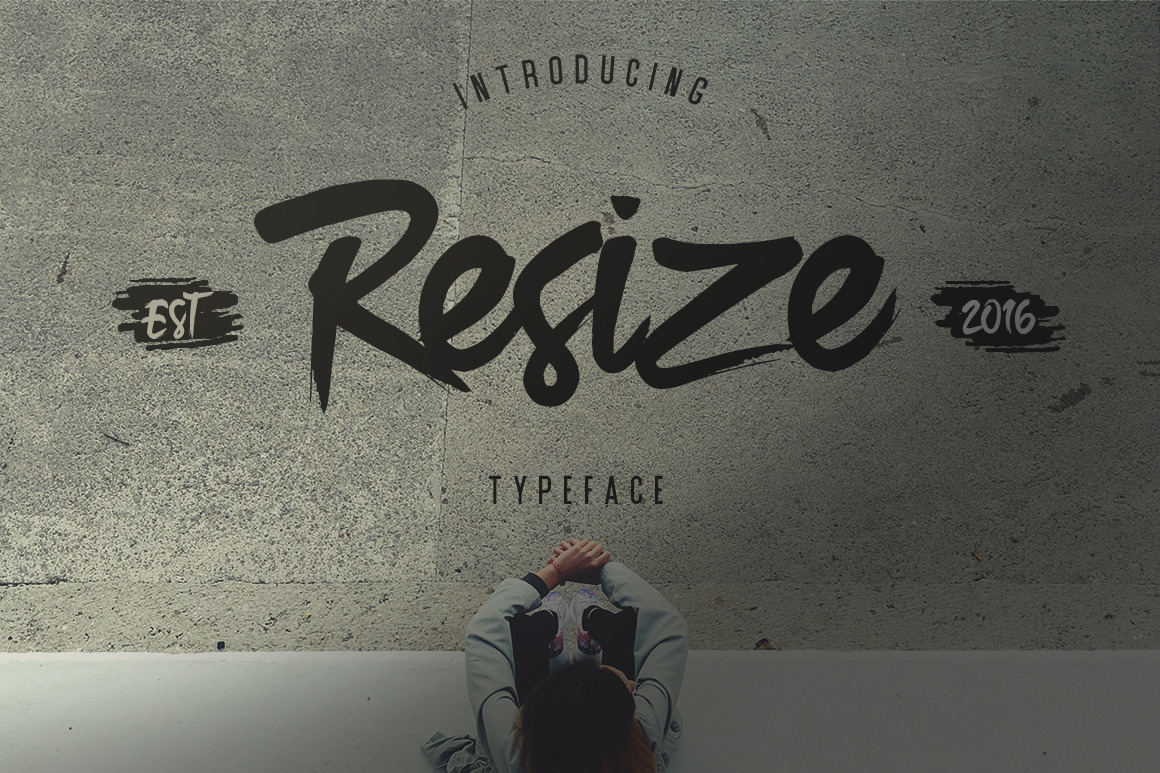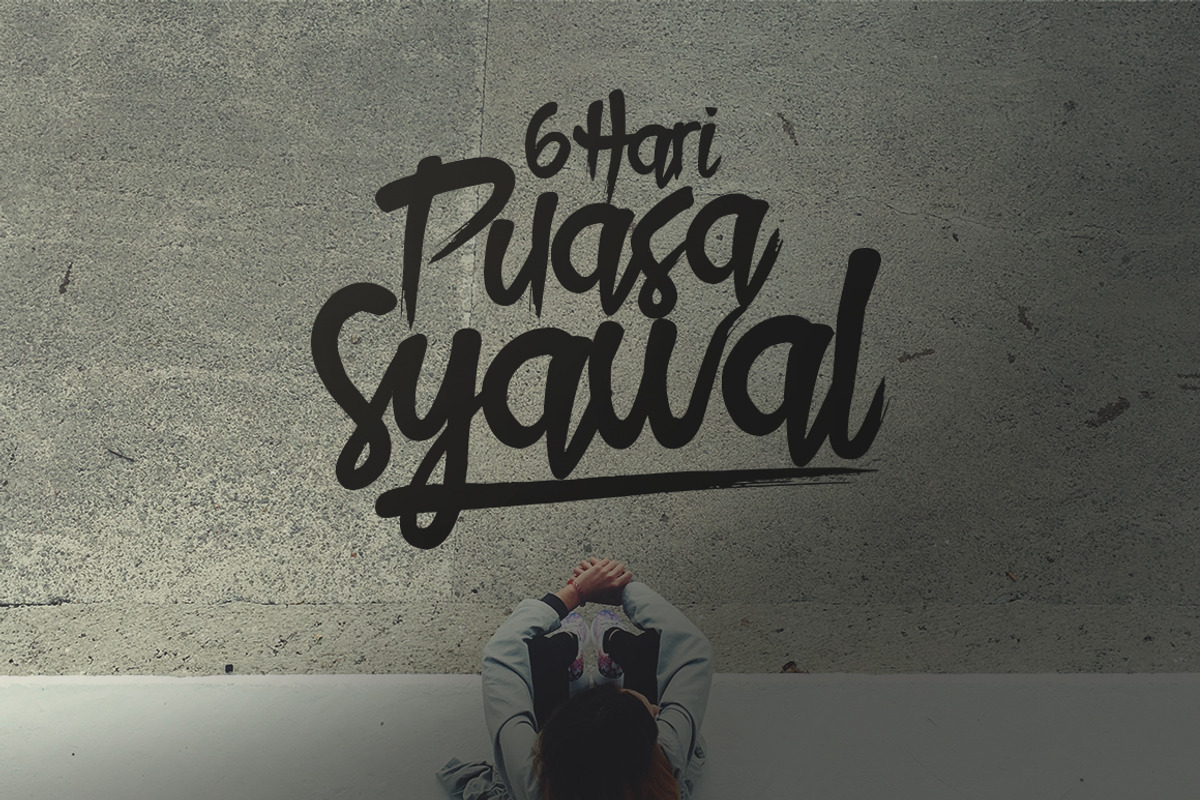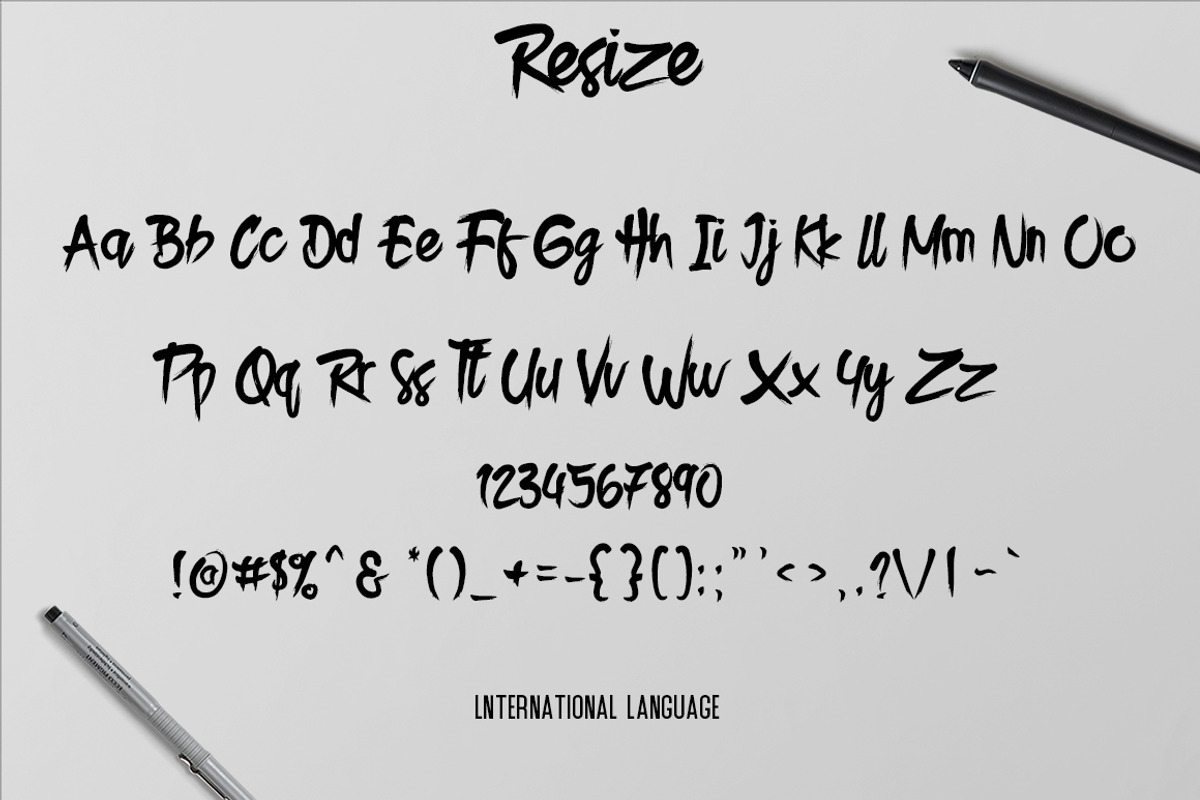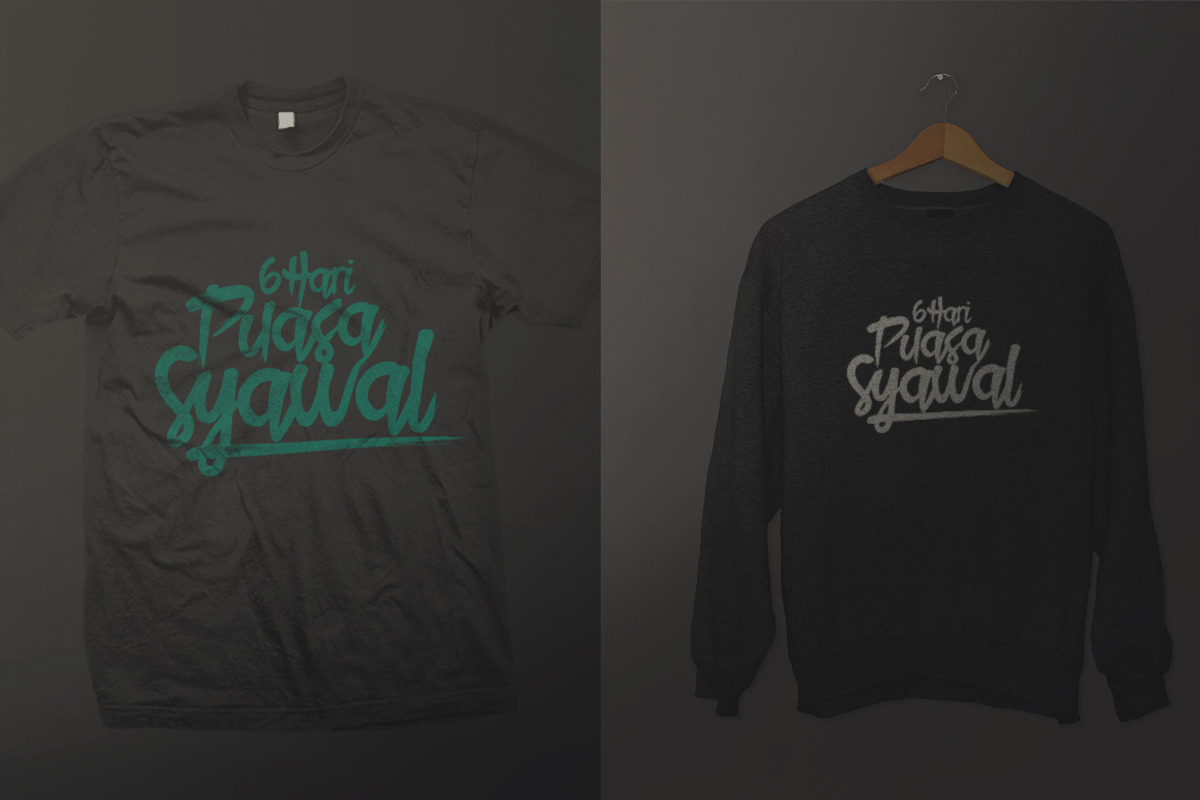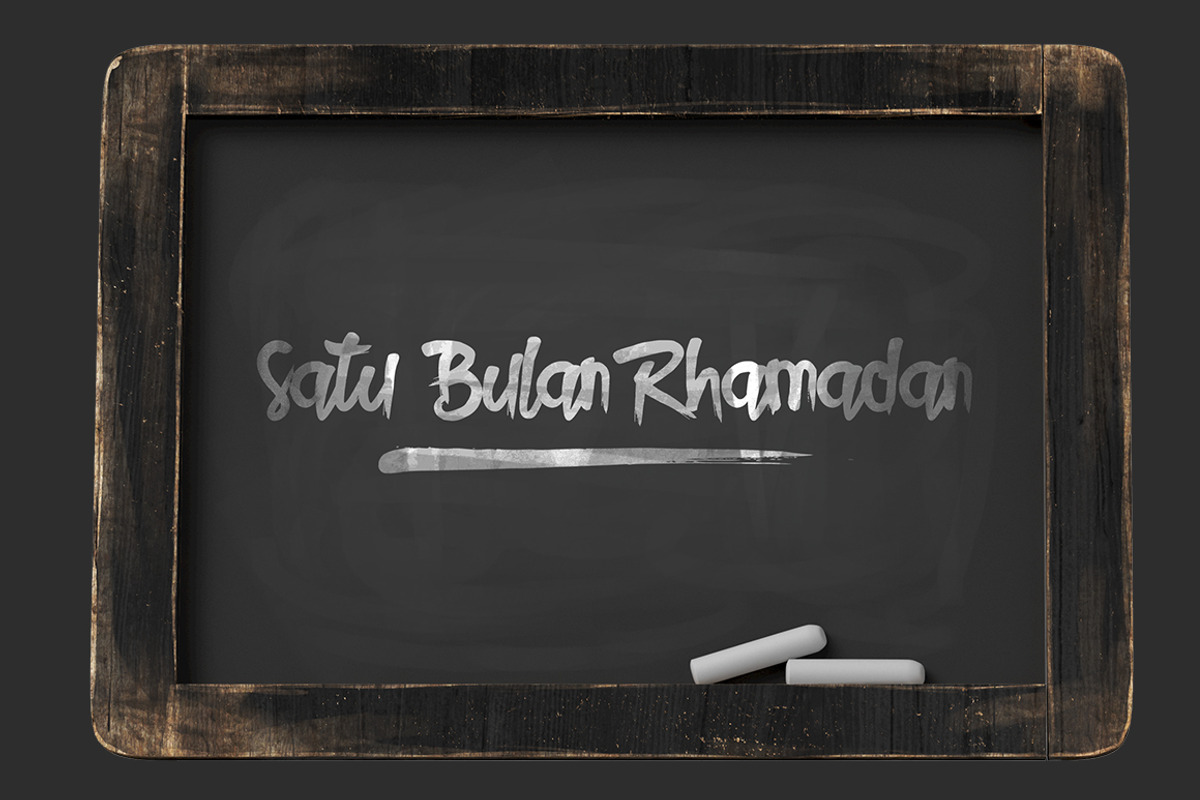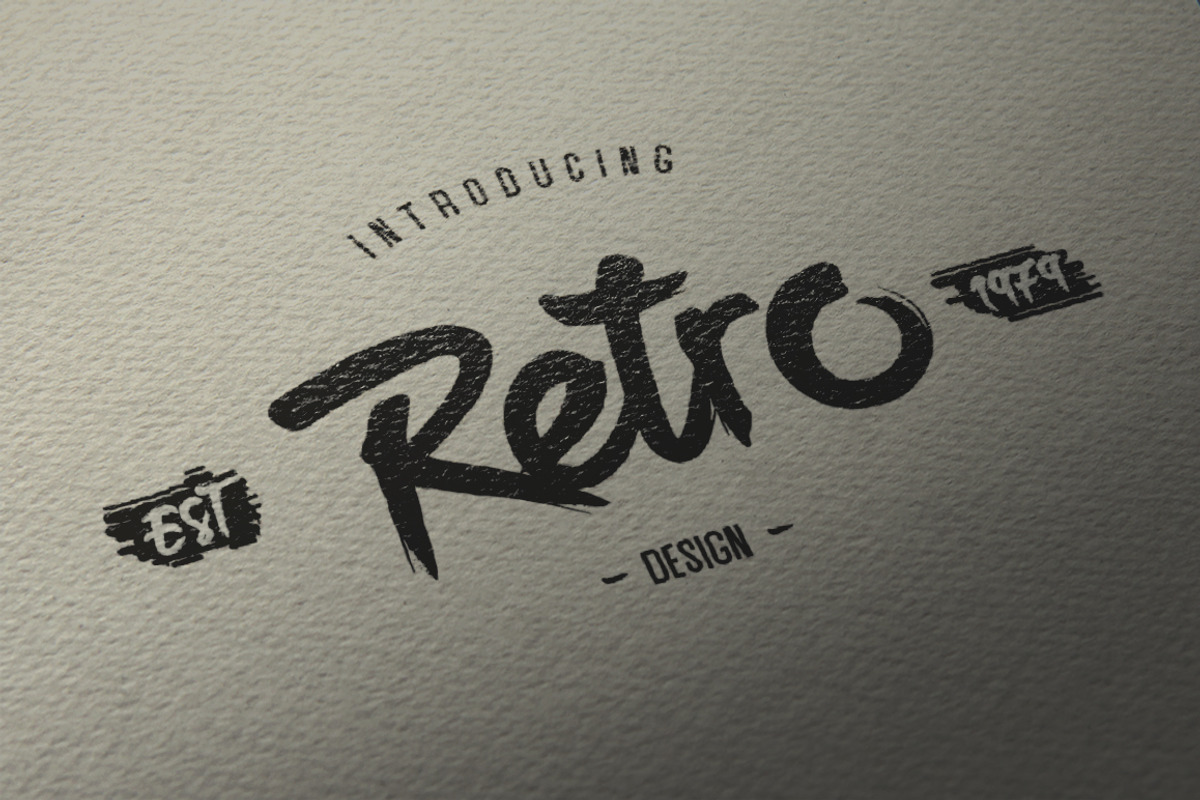
Resize Typeface
Resize Typeface A handmade typeface that inspired from hand-drawn lettering and vintage style, suitable for your awesome works (Brands, Poster, Logo, Advertisement, etc)
- upper & lower case